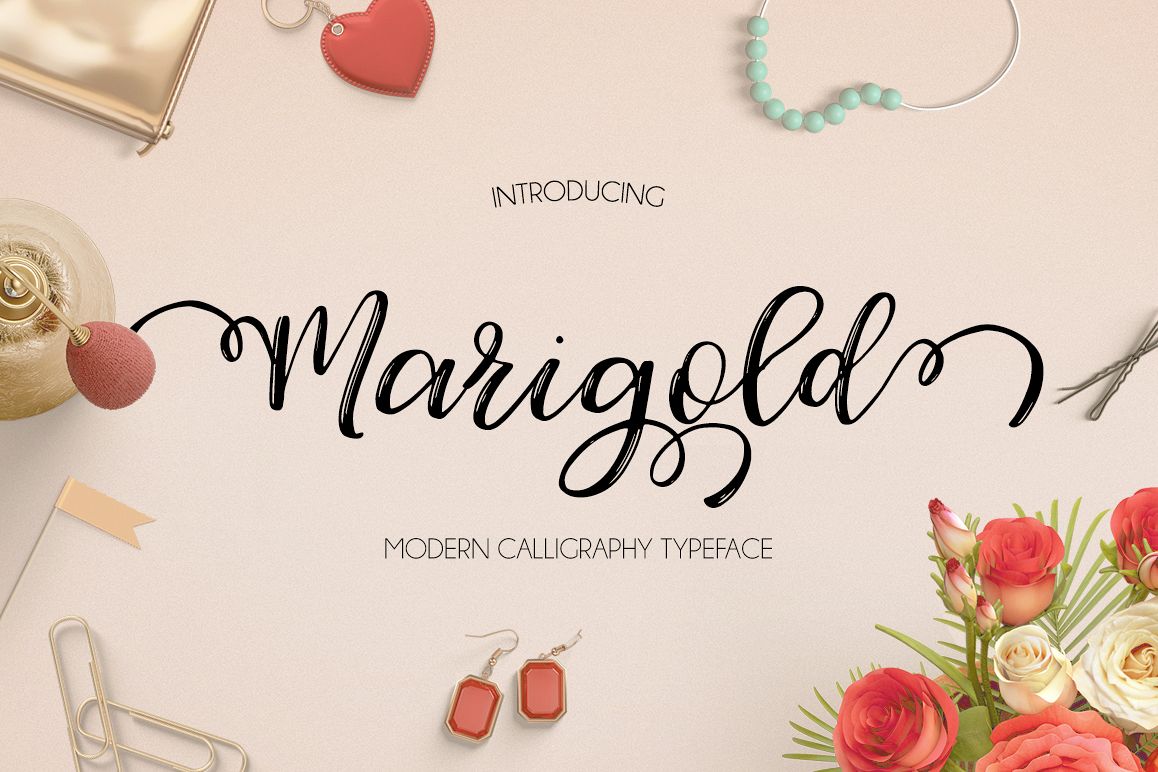
Marigold
Meet new Modern calligraphy typeface MARIGOLD
MARIGOLD DUO - a new modern calligraphy font. Very suitable for greeting cards, branding materials, business cards, quotes, posters, and more!
Marigold